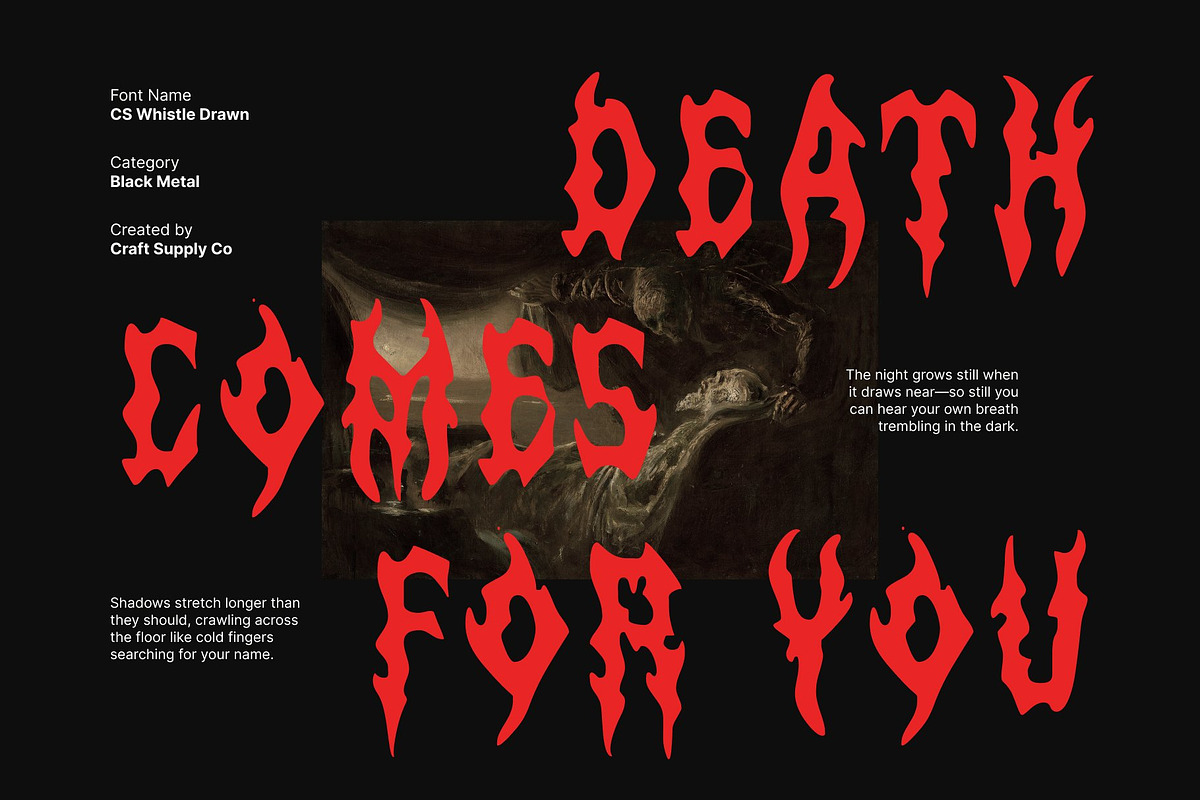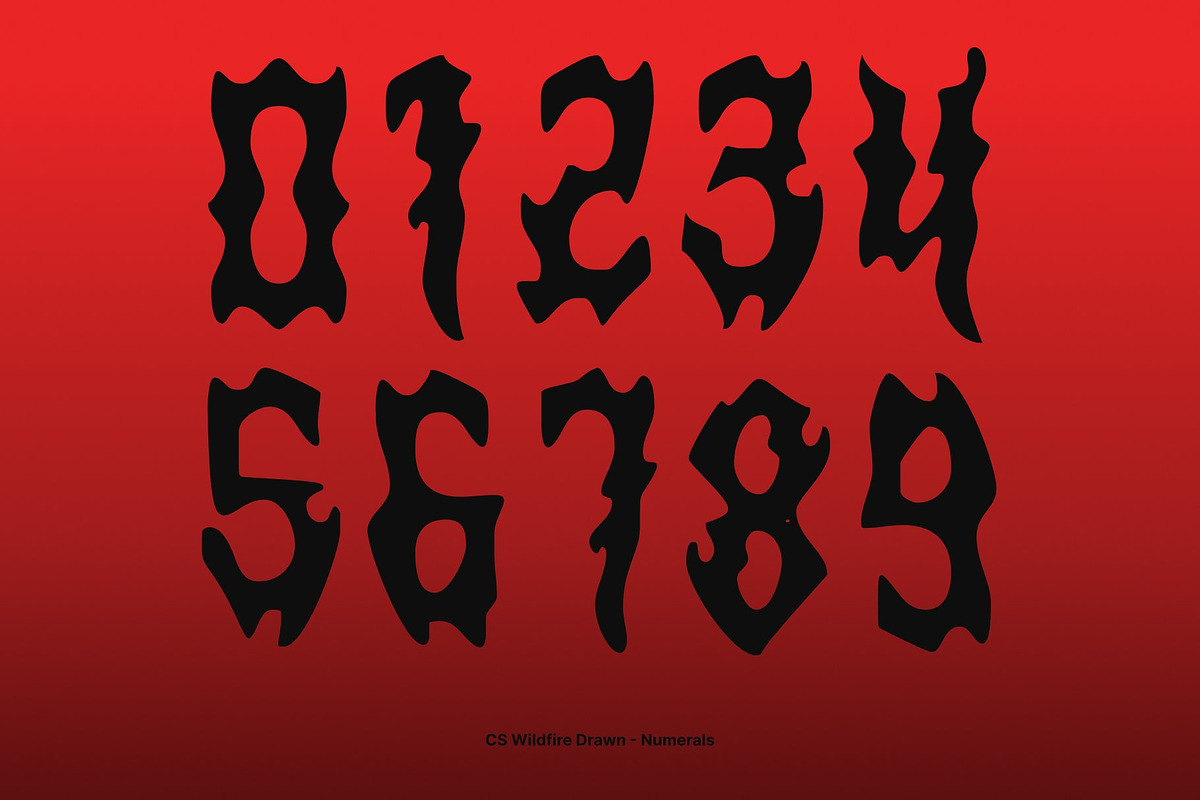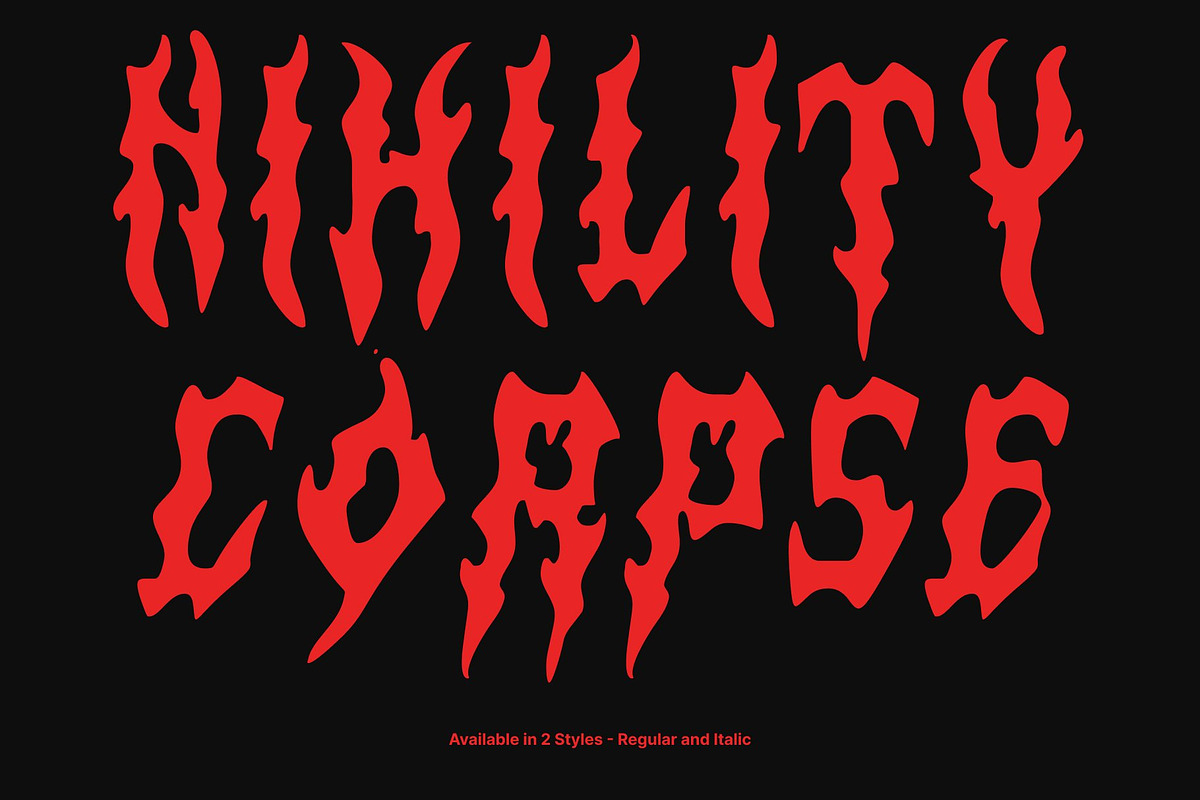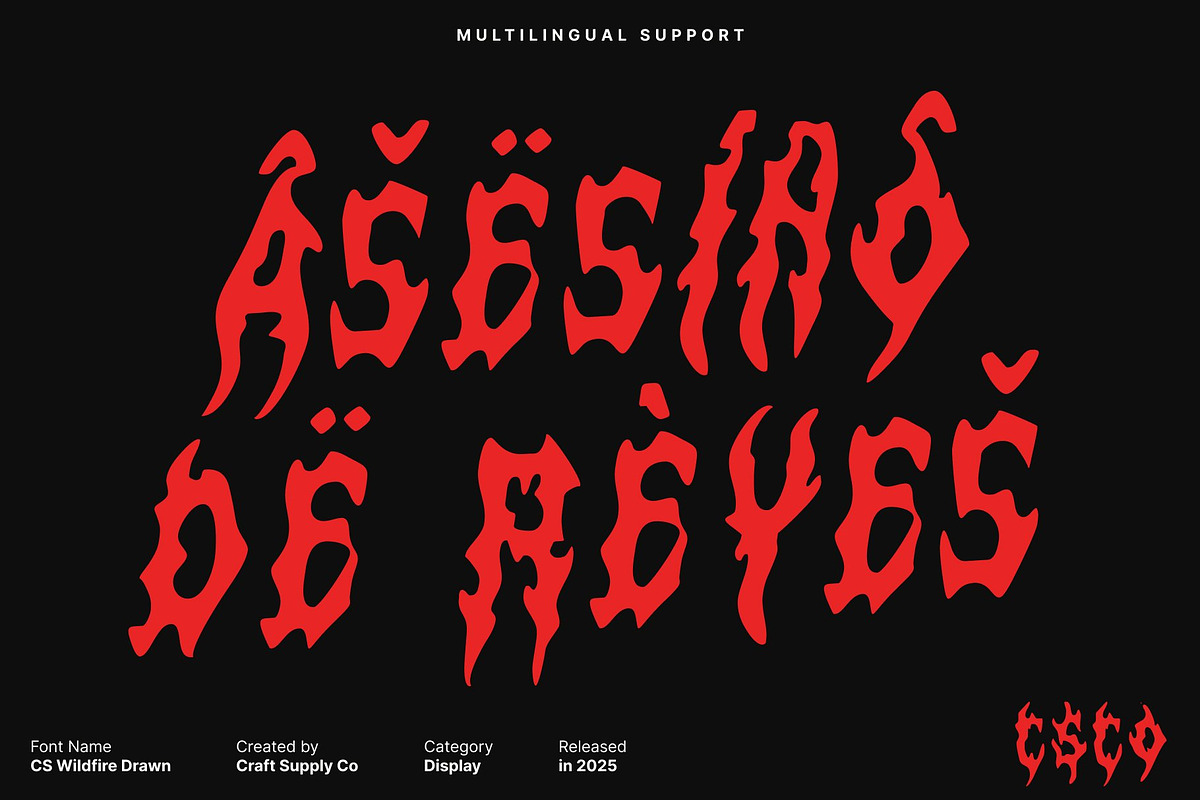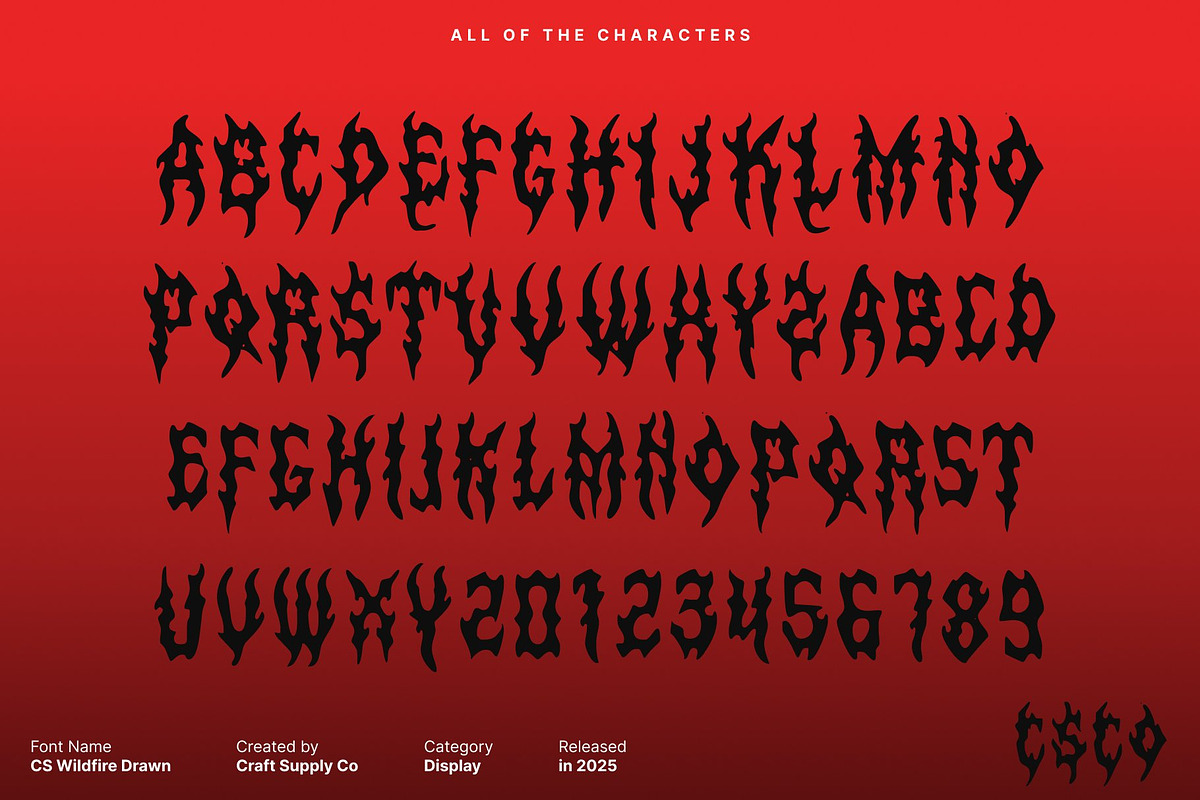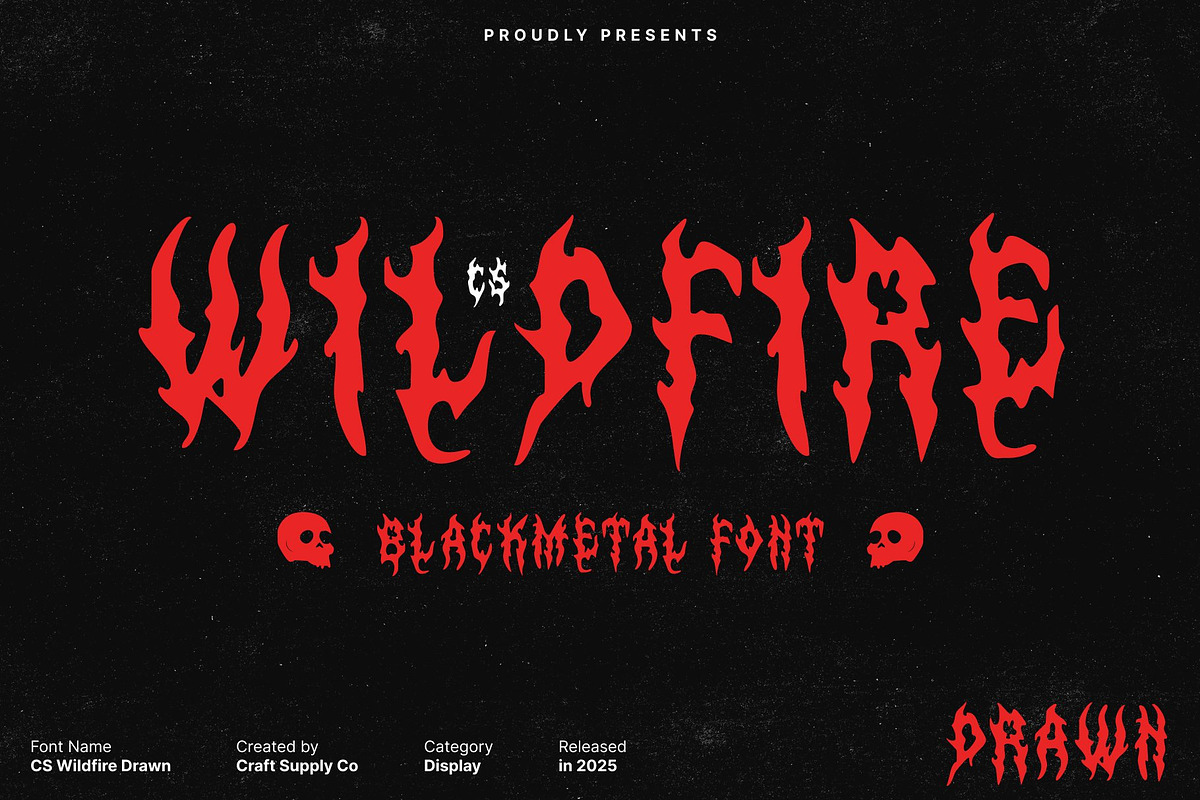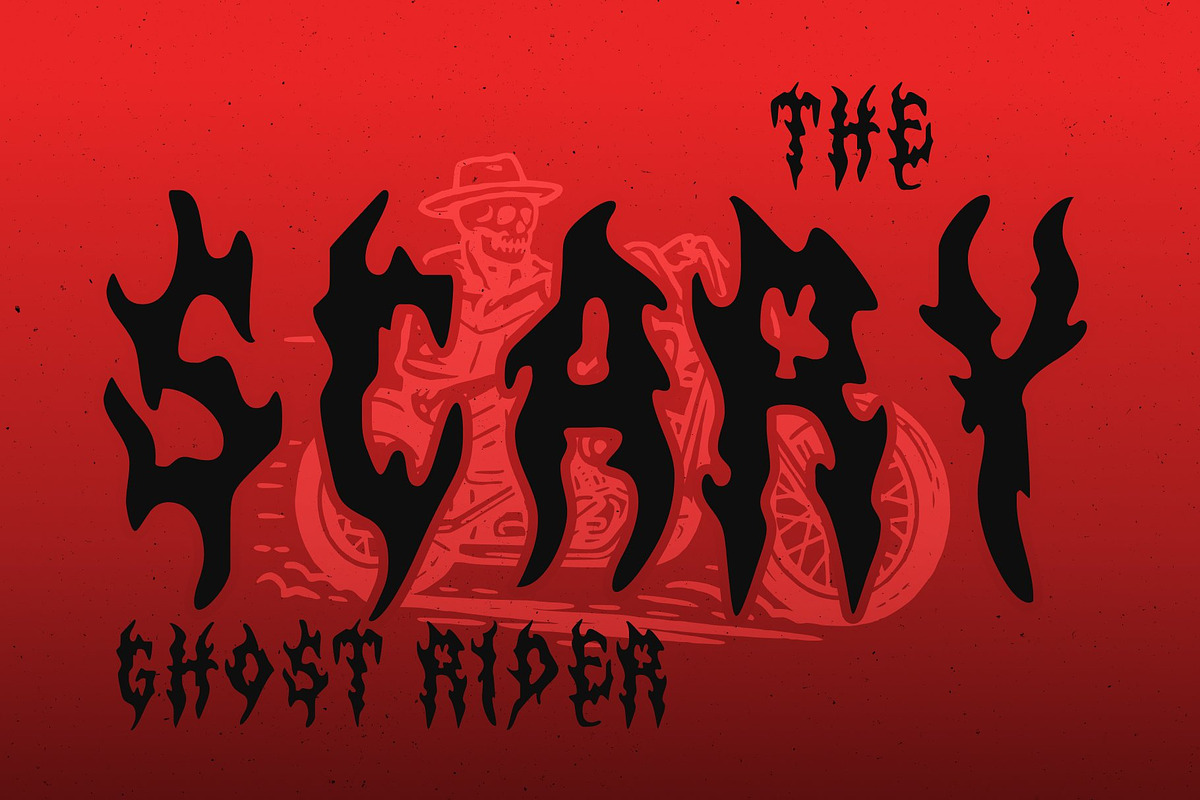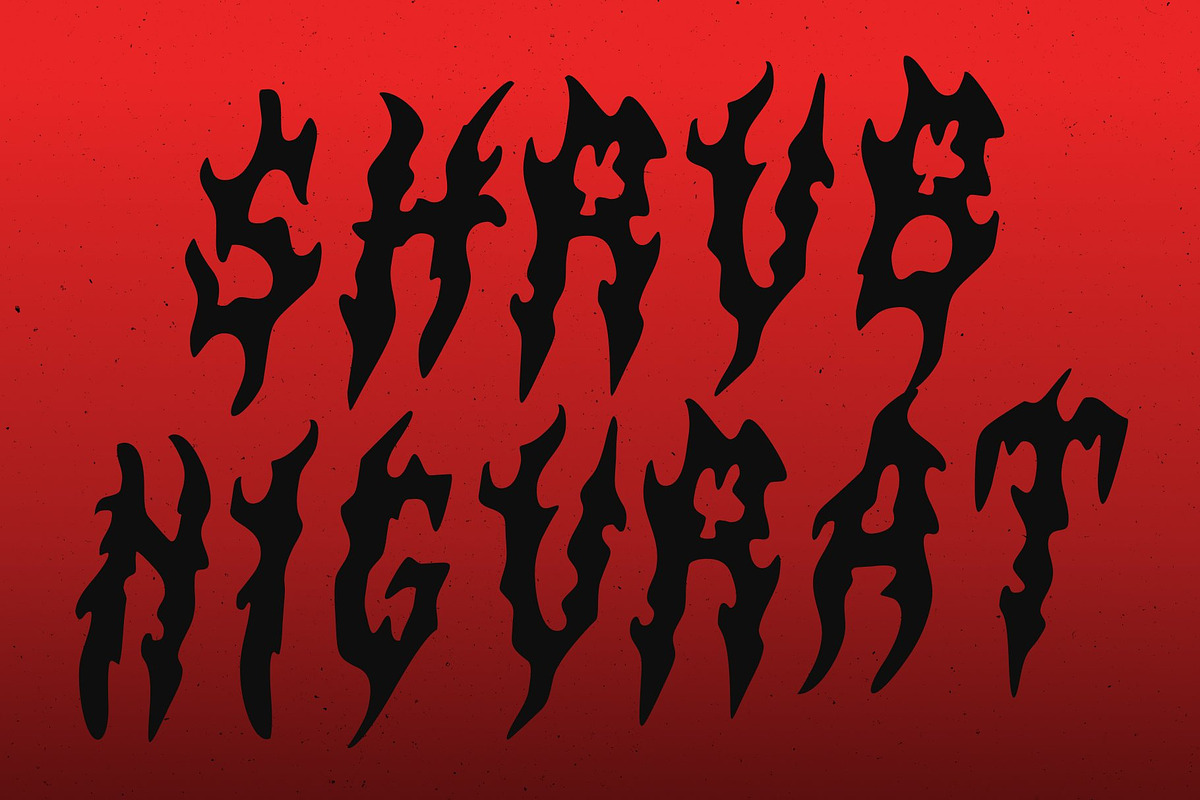
CS Wildfire Drawn
CS Wildfire Drawn – Black Metal Font with Chaotic Energy
Jagged and Intense Letterforms This is a black metal font built to deliver raw aggression and visual impact. Its jagged spikes and chaotic strokes create a sense of ferocity and dark energy, giving every character a striking presence. The sharp and unpredictable forms convey intensity, perfectly capturing the extreme aesthetic of underground music and rebellious design.
Drawn Effect for Artistic Texture The drawn effect adds a handcrafted, textured layer to this font, enhancing its chaotic and expressive appearance. Each letter carries a unique, artistic touch, emphasizing movement, unpredictability, and intensity. This texture turns the font into a visual expression of raw energy, giving designs a distinctive, edgy vibe.
Ideal for Band Logos, Posters, and Edgy Projects This font excels in display applications where darkness and attitude matter. It is perfect for band logos, album covers, promotional posters, and other projects that demand a powerful, aggressive look. Its jagged shapes combined with the textured drawn effect ensure designs stand out and leave a memorable impression.
Capture the Spirit of Extreme Music Merging raw black metal aesthetics with artistic texture, this font embodies the spirit of extreme music. It transforms text into a bold, chaotic, and visually dynamic statement. Designers can use it to convey rebellion, darkness, and intensity, making every project resonate with energy and unapologetic character.